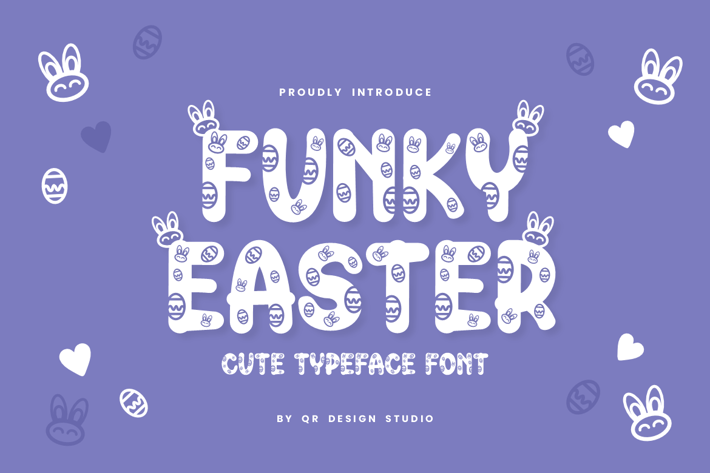
Funky Easter - Playful Typeface Font
Funky Easter Font is a brush and authentic display font.
The font is suitable for any branding project like kids, poster, logo, Easter, and many more.